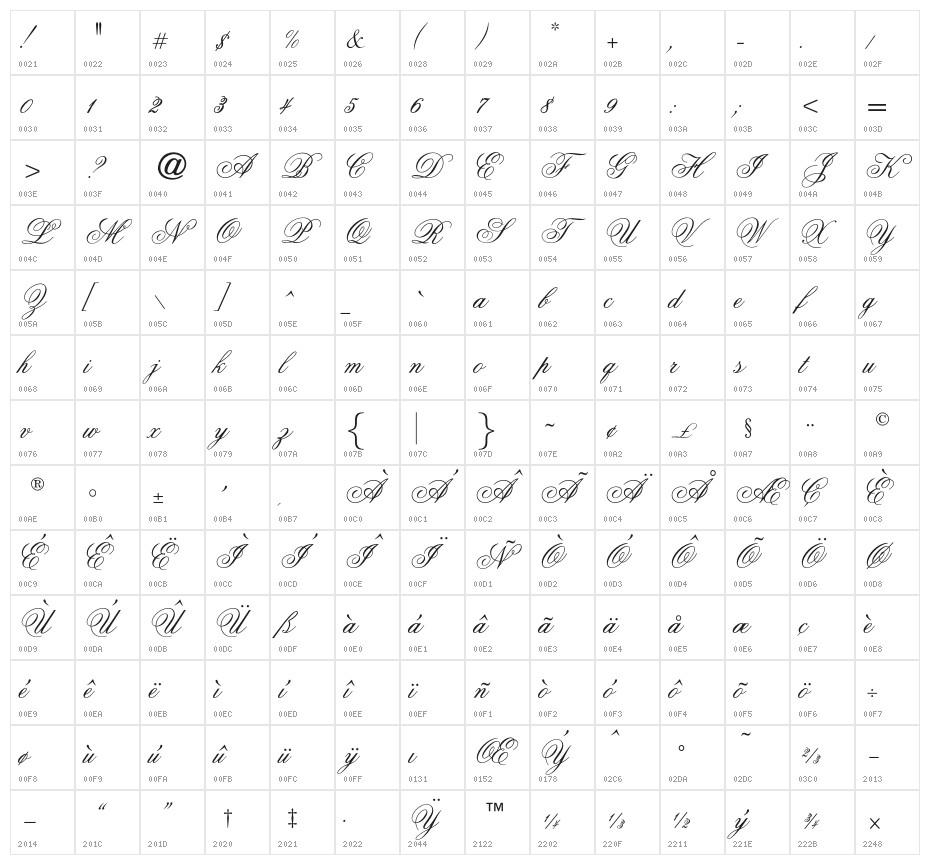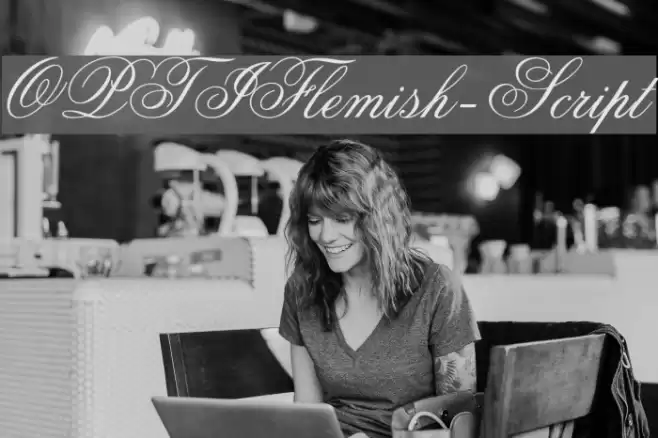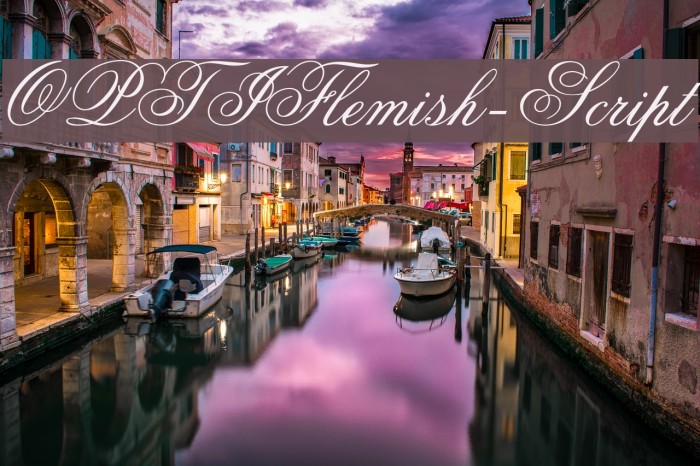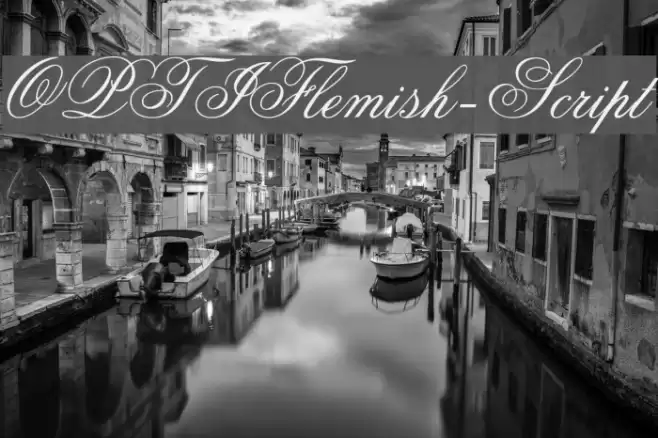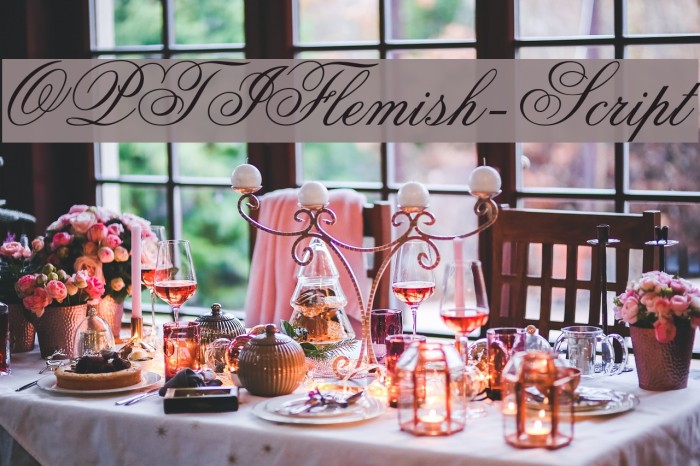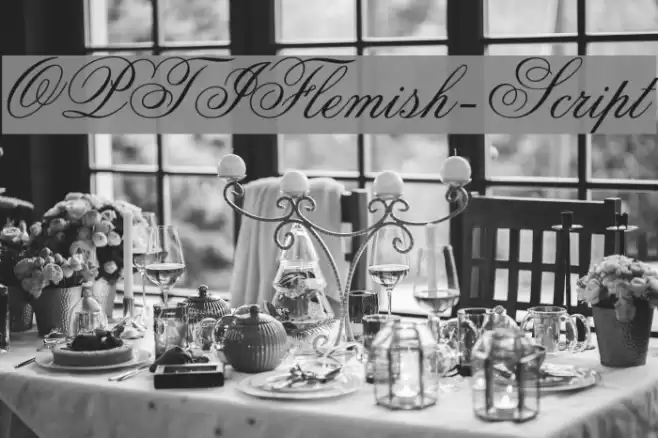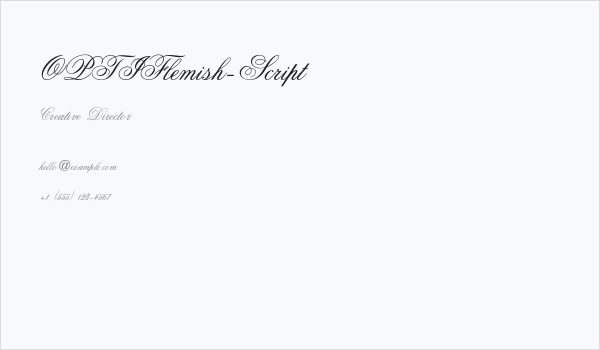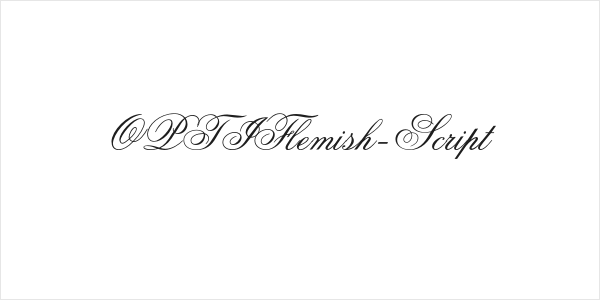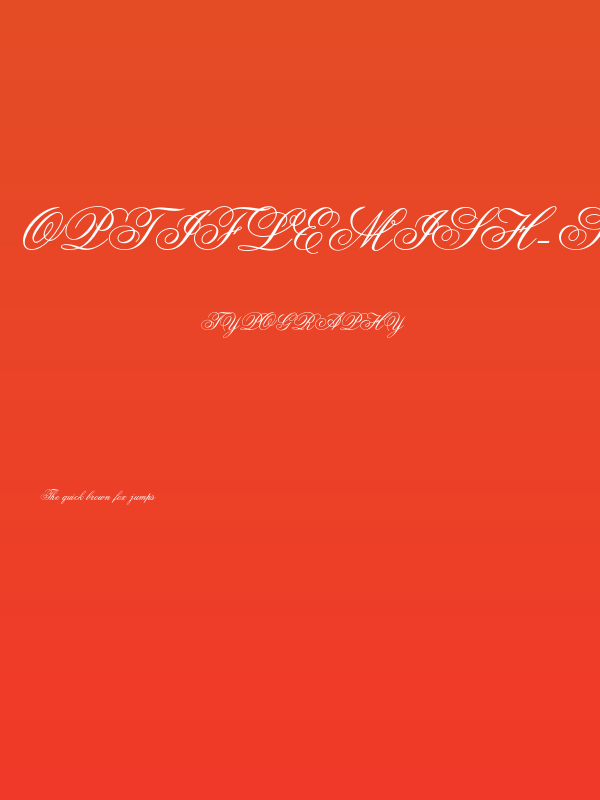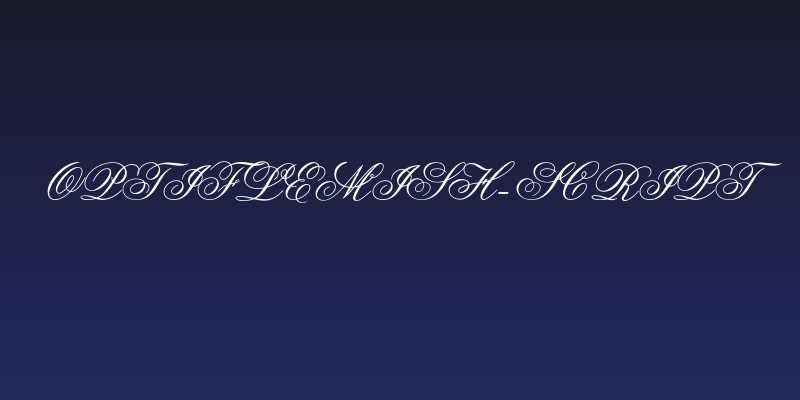
OPTIFlemish-Script Font
OPTIFlemish-Script Description
This elegant script font features intricate, flowing letterforms that evoke a sense of sophistication and grace. The uppercase letters are particularly ornate, with elaborate loops and flourishes that add a decorative touch. The lowercase letters maintain a consistent style, with smooth, connected strokes that enhance readability while preserving the font's artistic flair. Numbers and special characters are designed to match the overall aesthetic, ensuring a cohesive look across all text elements. This font is ideal for projects that require a touch of elegance and refinement, such as invitations, formal announcements, or branding materials.
Overall StyleElegant, Decorative
Use CaseInvitations, Branding, Decorative text
Proposed ProjectsIdeal for wedding invitations, formal event announcements, luxury branding, and elegant packaging designs.